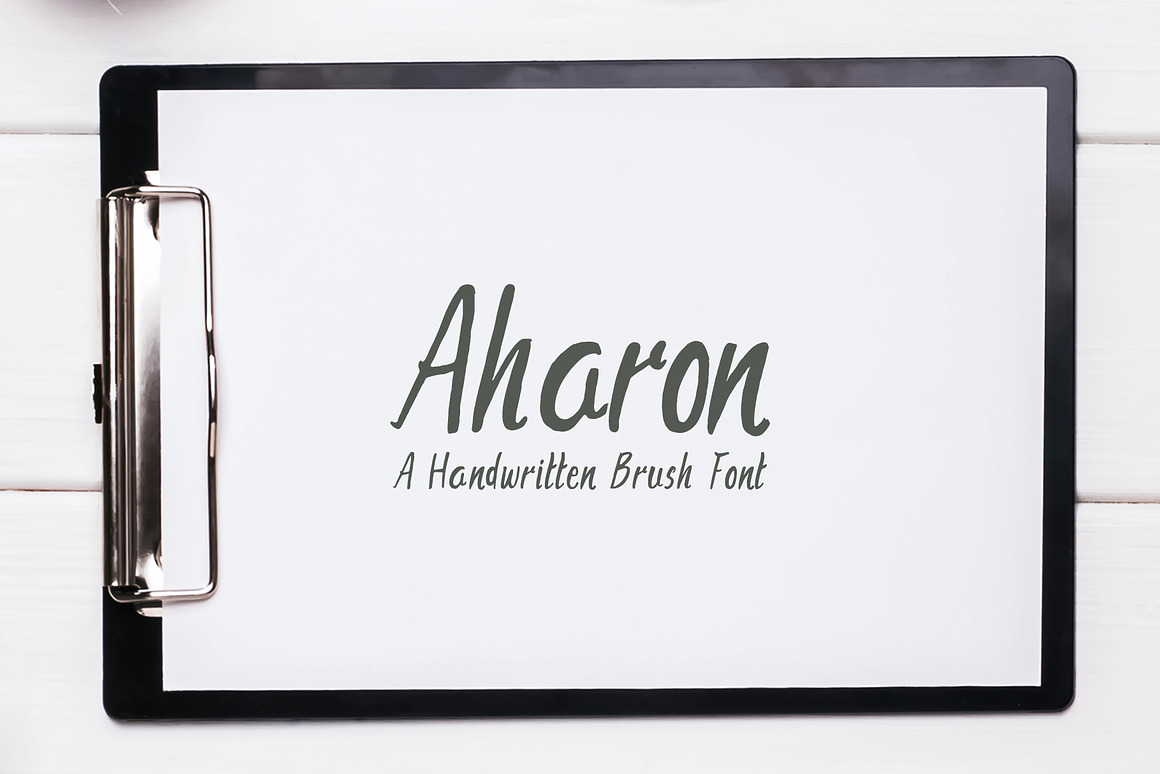
Aharon Handwritten Brush Font
Aharon Handwritten Brush Font is perfect for creative logos, artistic greeting cards, handmade product labels, casual branding, inspirational quotes, social media graphics, craft business communications, and authentic personal messaging.
Aharon Handwritten Brush Font is exciting because it captures the organic energy and spontaneous character of natural brush strokes, featuring dynamic texture and expressive letterforms that bring authentic human touch to digital designs. Its artistic personality creates immediate emotional connection and creative authenticity.
Aharon Handwritten Brush Font family includes regular weight with natural variations, stylistic alternates, and decorative elements, providing designers with comprehensive options for creating genuine hand-painted typography effects and artistic expressions.
Aharon Handwritten Brush Font Free Download delivers premium artistic typography that embodies creative freedom and handcrafted authenticity. This distinctive typeface collection showcases masterful recreation of natural brush painting techniques through its textured strokes and organic character variations that create genuine artistic appeal. The font's expressive nature makes it particularly suitable for creative agencies, artisanal brands, craft businesses, and artistic professionals seeking to establish authentic visual identity that resonates with creative audiences.
Creative professionals consistently choose Aharon Handwritten Brush Font for projects requiring artistic flair and personal expression. Its organic character works magnificently in art studios, craft workshops, creative portfolios, and handmade product branding where authenticity and creative personality drive customer engagement. The font's dynamic nature creates memorable brand experiences that communicate passion, creativity, and artistic dedication.
The Aharon Handwritten Brush Font download package includes contextual alternates, natural character variations, and artistic flourishes that enhance its hand-painted authenticity. This comprehensive collection ensures professional results in creative design projects requiring genuine artistic typography character. The font performs exceptionally in both large display applications and detailed artistic work where its textural qualities add significant visual impact.
Design teams appreciate Aharon Handwritten Brush Font's ability to communicate creativity and personal craftsmanship in competitive creative markets. Its authentic brush-painted appearance and artistic sensibility help brands establish emotional connections with audiences seeking genuine creative experiences, making it an essential tool for organizations committed to expressing artistic vision through superior handcrafted typography and authentic creative communication.